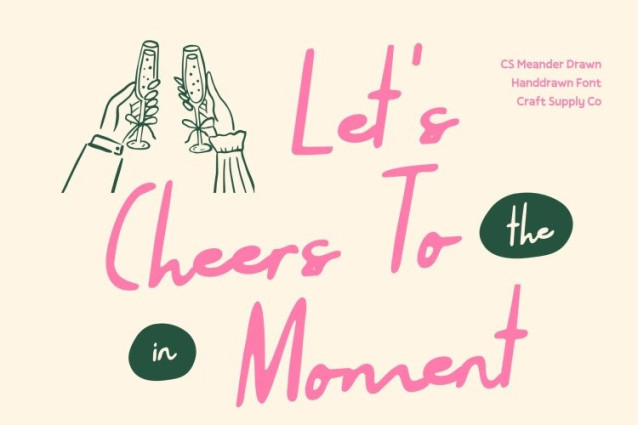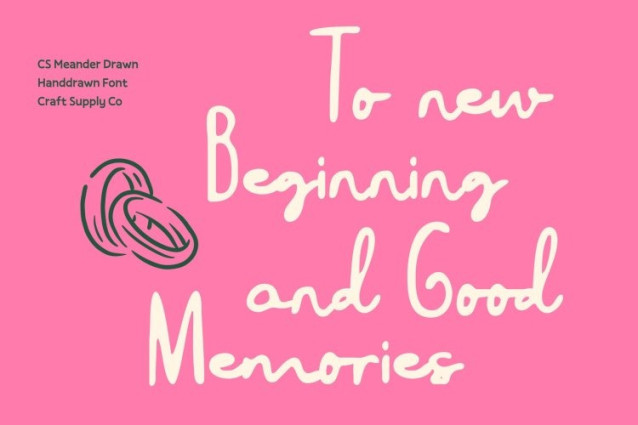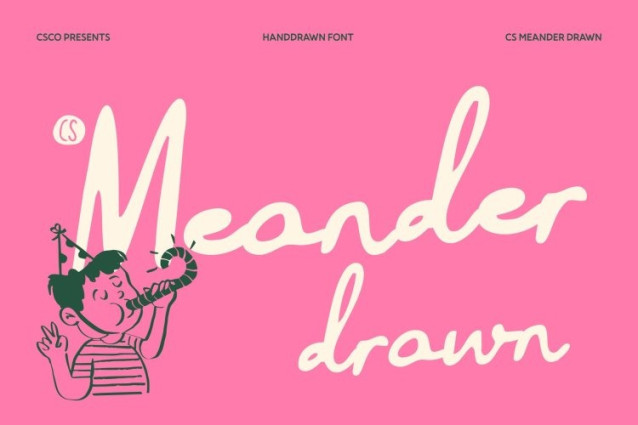
CS Meander Drawn Font
CS Meander Drawn Font This is a relaxed script font created to express simplicity, warmth, and an easygoing handwritten feel. Its natural strokes and unforced flow reflect a laid-back personality that feels friendly and approachable. Inspired by everyday handwriting, this font brings comfort and authenticity to designs, making it ideal for projects that feel personal, informal, and effortlessly stylish.
Simple Handwritten Forms with Natural Flow
The letterforms are intentionally simple, featuring smooth connections and balanced spacing that enhance readability. Each character flows naturally into the next, creating a calm, gentle rhythm that feels unpretentious. This simplicity allows the font to adapt easily across different layouts while maintaining its relaxed handwritten charm.
Easygoing Style for Casual Expression
CS Meander Drawn excels at conveying a casual, friendly tone. Its relaxed script style prioritizes personality over formality, making it perfect for expressive designs. Whether used for short phrases or longer text, the font remains clear and visually pleasing with a soft, approachable aesthetic.
Perfect for Casual Branding, Posts, and Invitations
Designed for versatile everyday use, this font works beautifully for branding, lifestyle posts, invitations, packaging, and social media graphics. Its relaxed handwritten style makes it especially suitable for small businesses, personal brands, event invitations, and creative content that values warmth, simplicity, and authenticity.